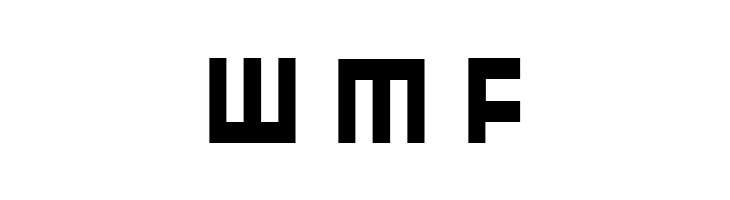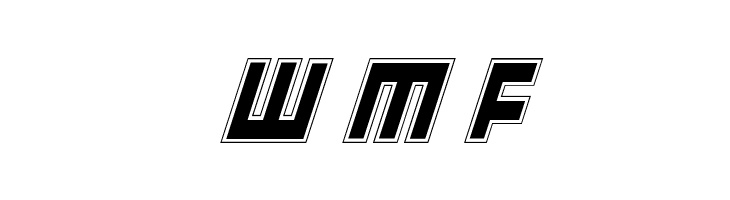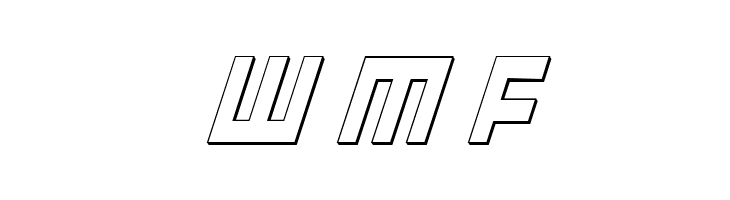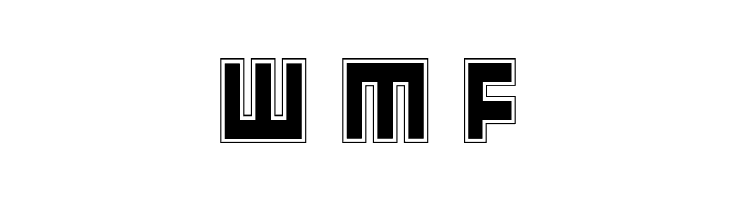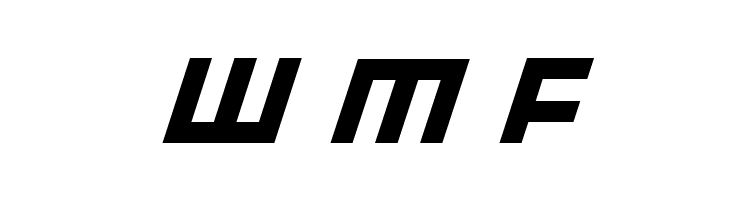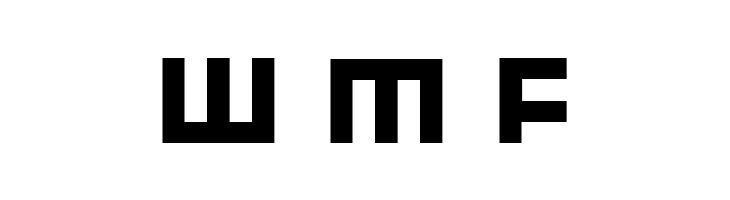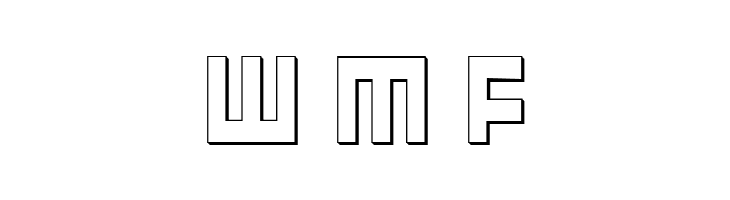
yacuzzi Font
A bold, geometric font with a futuristic, digital aesthetic.
A bold, futuristic italic font with geometric outlines and a sci-fi aesthetic.
A bold, 3D italic font with a futuristic and geometric design.
A bold, geometric font with a futuristic, sci-fi style.
A bold, expanded, and italicized futuristic font with geometric, angular characters.
A bold, geometric font with a futuristic and digital style.
A bold, geometric 3D font with a futuristic digital appearance.